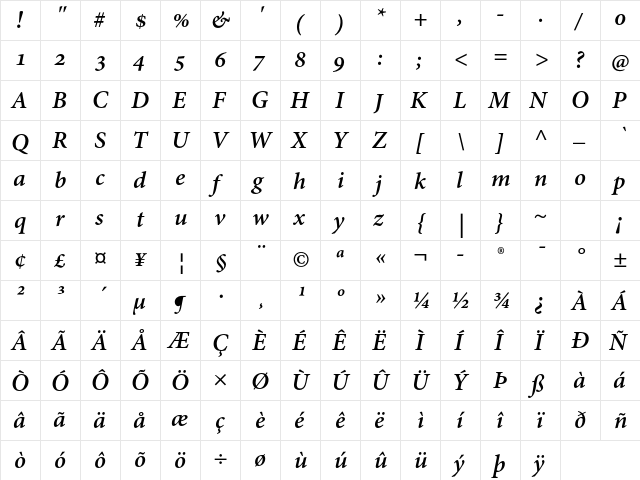
Adobe Hebrew Bold Italic Font Preview
Adobe Hebrew Bold Italic
Adobe Hebrew Bold Italic Font Details
| Foundry | Tiro Typeworks for Adobe Systems Incorporated. |
| Designer | John Hudson (Hebrew) and Robert Slimbach (Latin) |
Design Context for Adobe Hebrew Typeface
Adobe Hebrew offers clean, dependable letterforms without strong stylistic allegiance, making it a practical choice for designers who need flexibility. The dynamic lean of this cut emphasises speed and emphasis in any layout. Its bold stroke weight gives it real presence on the page.
Pro Tip: Use Adobe Hebrew for emphasis, pull quotes, and subheadings where its slanted energy can add rhythm to the layout.